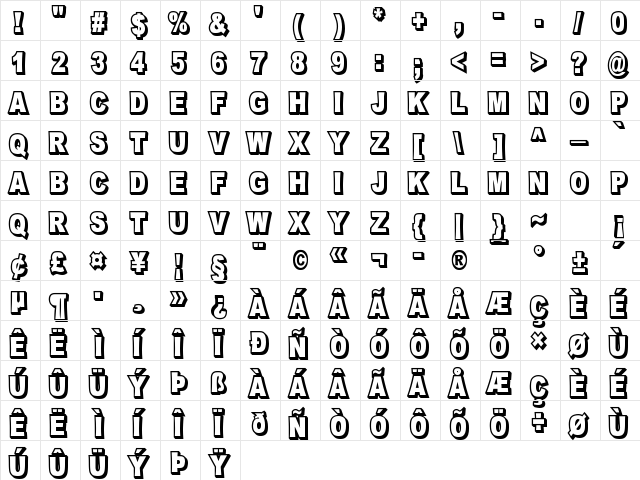
OMNIBLACK Outline Regular
| Foundry | StudioTypo |
| Designer | Mehmet Abaci |
Design Context for OMNIBLACK Outline Typeface
OMNIBLACK Outline brings ornamental detail and strong personality to headlines and identities, where visual impact matters more than quiet functionality.
Font Pairing: Pair with a clean neutral sans-serif for body copy to let OMNIBLACK Outline's character lead without overwhelming the composition.
Pro Tip: Treat OMNIBLACK Outline as the centrepiece of your typographic hierarchy. One strong heading set in a decorative face can carry an entire layout.